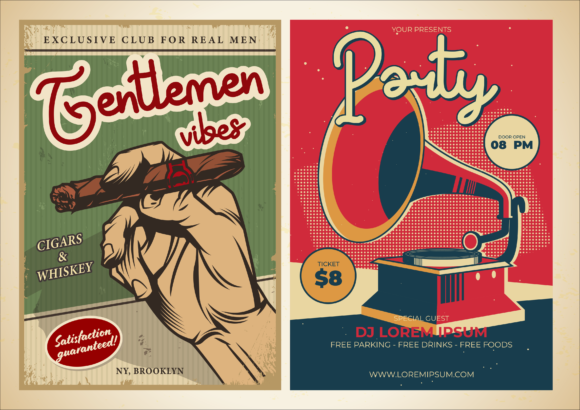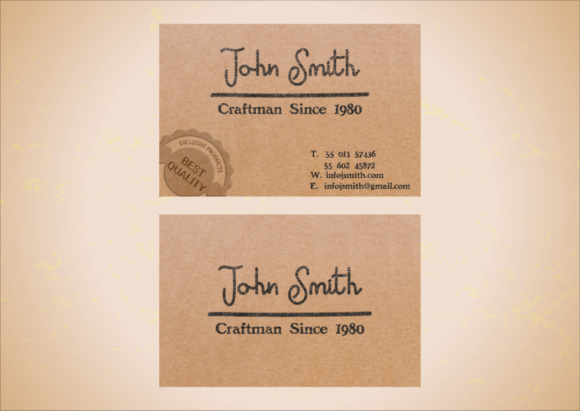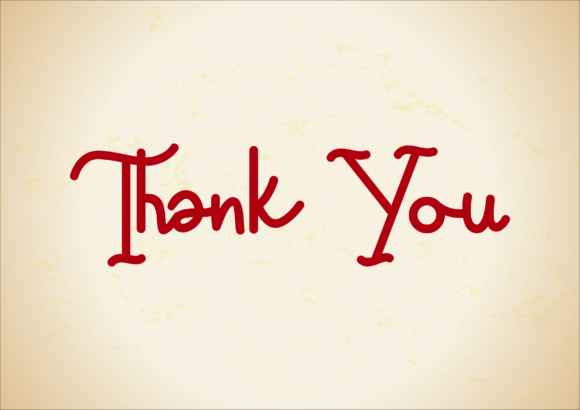
Introduction to Rootes Font
As a designer, you’ve probably found yourself in a moment of creative bliss, staring at a blank canvas, waiting for the perfect font to bring your vision to life. The search is over – welcome to Rootes Font, the epitome of elegance and sophistication in the world of typography.
With its smooth curves and vintage charm, Rootes Font is a design resource that will elevate any creative project. Whether you’re working on a fashion branding campaign or an editorial design, this high-quality font is sure to make your work stand out. And the best part? It’s available for a free download, so you can add it to your design arsenal without breaking the bank.
- This unique font features a distinctive and modern design, making it an excellent choice for designers looking for a fresh and creative look.
- Rootes Font is a versatile design resource that can be used in a variety of creative projects, from logos and branding to typography and graphics.
Honest Review: Rootes Font
As a designer, I’m always on the lookout for high-quality design resources that can elevate my creative projects. Recently, I stumbled upon the Rootes Font, and I’m excited to share my honest review with you.
- ✨ Unique and modern design aesthetic that’s perfect for contemporary projects
- ✨ Clear and legible font that’s easy to read on both digital and print materials
- ⚠️ Limited font styles and weights, which may not be suitable for projects that require a wide range of typography options
- ⚠️ May not be suitable for projects that require a transparent background, as the font has a subtle texture that may not blend seamlessly
Overall, I’m impressed with the Rootes Font’s design quality and versatility. While it may have some limitations, it’s a solid choice for designers who want a modern and stylish font for their creative projects. With its high-quality design and free download option, it’s definitely worth checking out.
Rootes Font
The Rootes Font is a versatile and high-quality design resource perfect for any creative project. With its transparent background, you can easily integrate it into your design without any distractions.
Tips for Getting the Most Out of Rootes Font
To get the most out of the Rootes Font, experiment with different font sizes, colors, and styles to create a unique and visually appealing design. You can also combine the Rootes Font with other design elements to add depth and interest to your project.
The Rootes Font is perfect for various creative projects, including graphic design, web design, and digital marketing. You can use it to create eye-catching logos, headings, and body text for your website, social media, or marketing materials.